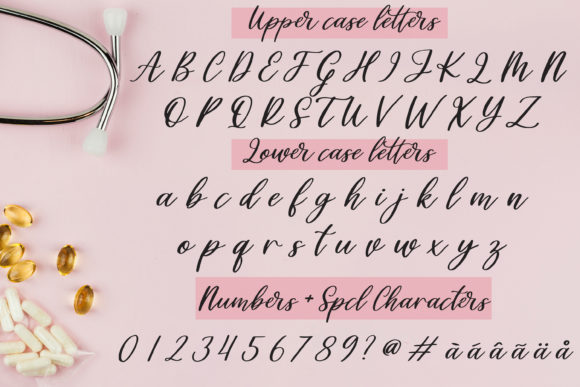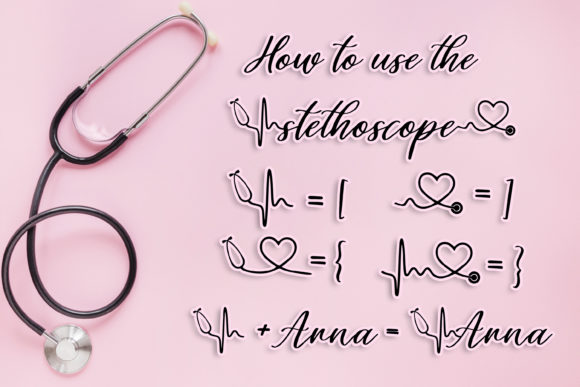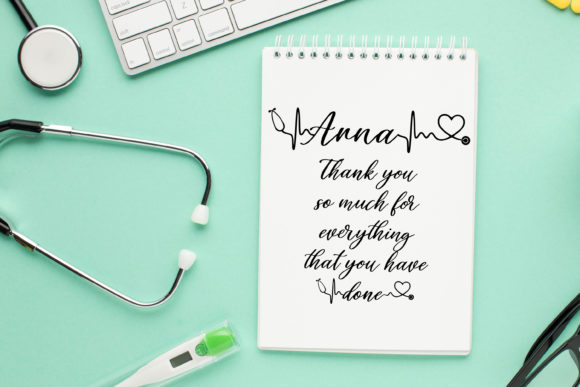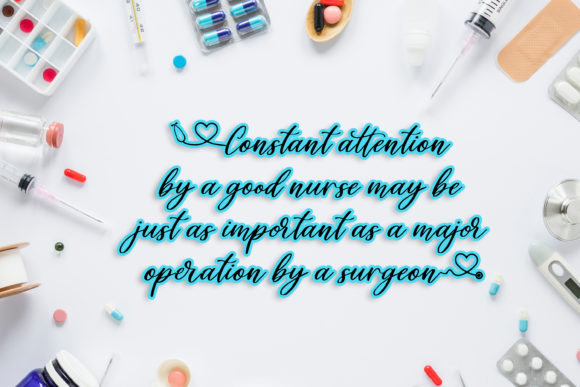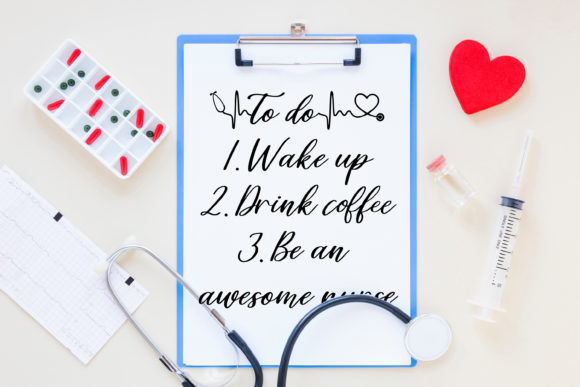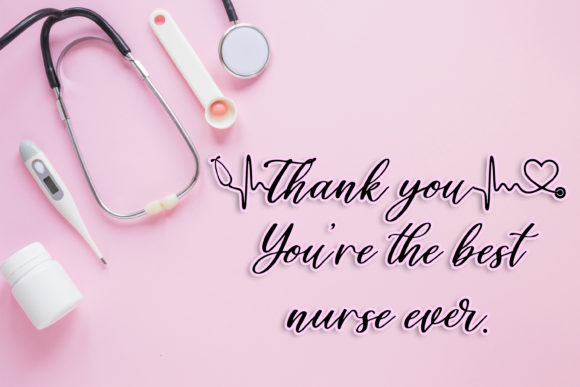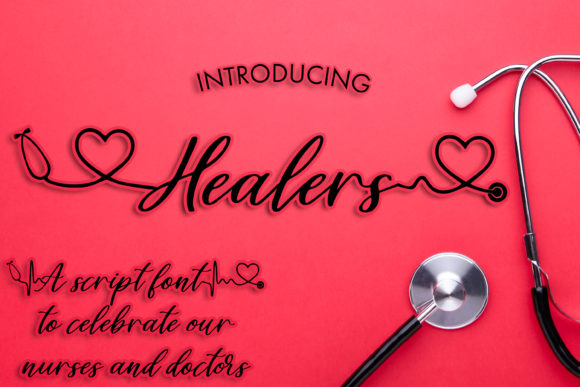
Introducing Healers Font: A Script Font to Honor Our Medical Heroes
In the world of typography, fonts play a crucial role in conveying emotions and messages. For designers and crafters, finding the right font can make all the difference in creating a stunning visual project. That’s why we’re excited to introduce Healers Font, a beautiful script font designed to celebrate the tireless efforts of our nurses and doctors. With its unique heart characters, Healers Font is sure to inspire your next creative project.
The Story Behind Healers Font
Healers Font was created with a mission to pay tribute to the medical professionals who dedicate their lives to caring for others. The font’s design is inspired by the symbols of love, care, and compassion that are often associated with the medical field. The result is a stunning script font that exudes warmth, kindness, and dedication.
What Makes Healers Font Special?
Healers Font stands out from other script fonts due to its special heart characters. These characters are designed to add a touch of love and care to your projects, making them perfect for Valentine’s Day, Mother’s Day, or any other occasion where you want to express your appreciation for loved ones. The font’s heart characters can be used to create beautiful quotes, posters, and social media graphics that are sure to capture the hearts of your audience.
Key Features of Healers Font
- Script Font Style: Healers Font is a beautifully designed script font that is perfect for creating elegant and sophisticated projects.
- Special Heart Characters: The font features a range of special heart characters that can be used to add a touch of love and care to your projects.
- Easy to Read: Despite its elegant style, Healers Font is easy to read, making it perfect for use in quotes, posters, and other visual materials.
- Multilingual Support: Healers Font supports multiple languages, making it a great choice for designers and crafters who work with international clients.
Use Cases for Healers Font
Healers Font is a versatile font that can be used in a variety of projects, including:
- Valentine’s Day Cards and Posters: Create beautiful Valentine’s Day cards and posters with Healers Font’s special heart characters.
- Medical and Healthcare Projects: Use Healers Font to create projects that celebrate the medical profession, such as posters, brochures, and social media graphics.
- Crafting and Scrapbooking: Add a touch of elegance to your crafting and scrapbooking projects with Healers Font.
- Wedding and Event Stationery: Use Healers Font to create beautiful wedding and event stationery, such as invitations, menus, and place cards.
Tips for Using Healers Font
Here are some tips for using Healers Font in your projects:
- Experiment with Font Sizes: Try using Healers Font in different font sizes to create visual interest and hierarchy in your projects.
- Combine with Other Fonts: Combine Healers Font with other fonts to create a unique and eye-catching look.
- Use Heart Characters Creatively: Get creative with Healers Font’s special heart characters by using them as decorative elements or as a way to add emphasis to your text.
Healers Font is a beautiful script font that is perfect for designers and crafters who want to create stunning visual projects that celebrate the medical profession. With its special heart characters and elegant style, Healers Font is sure to inspire your next creative project. Download Healers Font today and get started on creating your own unique projects!